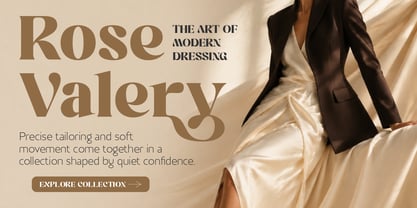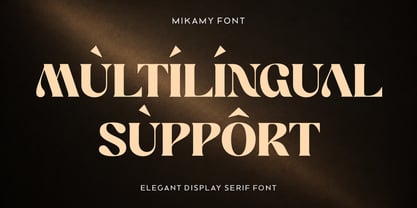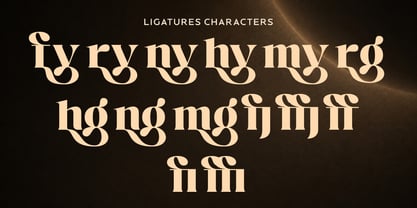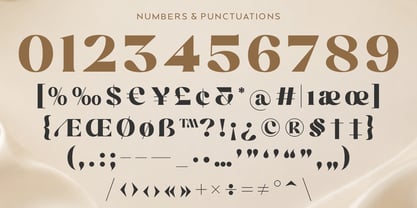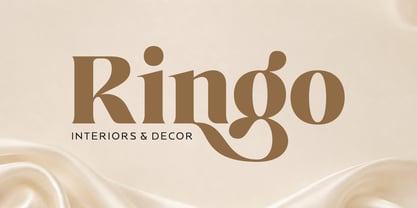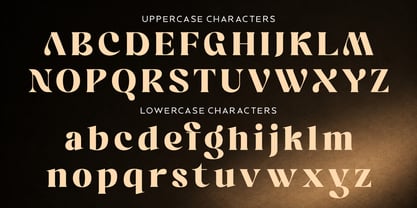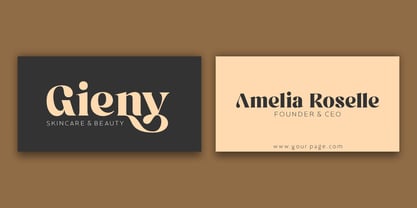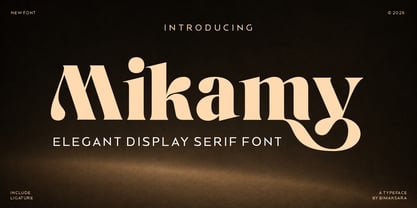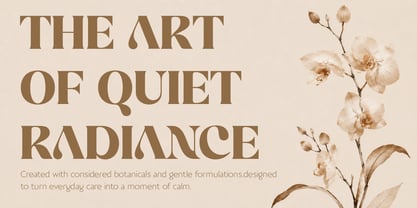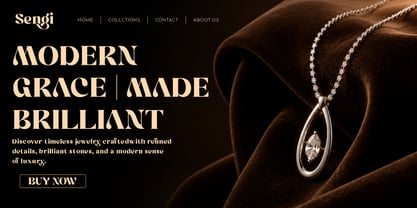
Mikamy
by Bimaksara
The Mikamy Font Family was designed by Nur Mokhamad Bismatulloh and published by Bimaksara. Mikamy contains 1 styles. More about this family
Mikamy is an elegant display serif font created with striking contrast, graceful curves, and distinctive ligatures. Its refined letterforms combine classic sophistication with a modern fashion-inspired character, giving every word a luxurious and expressive appearance.
Designed to make a strong visual statement, Mikamy works beautifully for both minimalist compositions and sophisticated branding. Its elegant details make it especially suitable for projects that require a premium, stylish, and memorable identity.
Give your next project a refined and timeless personality with Mikamy.